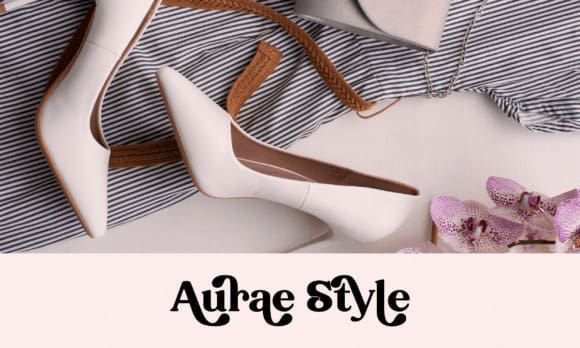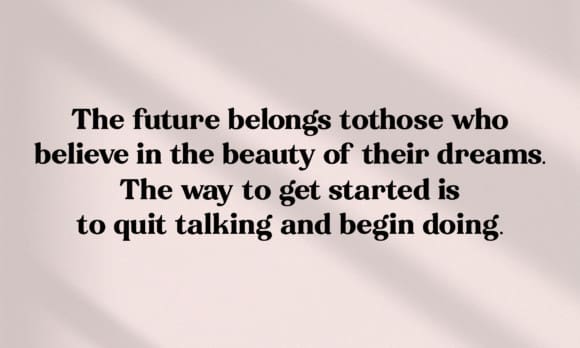
Rockies Font
Rockies Font – a refined classic Serif font. This font is a brilliant blend of vintage feel and contemporary boldness, ideal for creating breathtaking headlines and sophisticated designs. With its contrasting strokes paired with delightfully curved ends, Rockies captivates and charms, adding a sleek, timeless elegance to your logos, festive greetings, wedding invites, motivational quotes, promotional materials, and beyond. Celebrate vintage allure in every keystroke with the Rockiesfont.